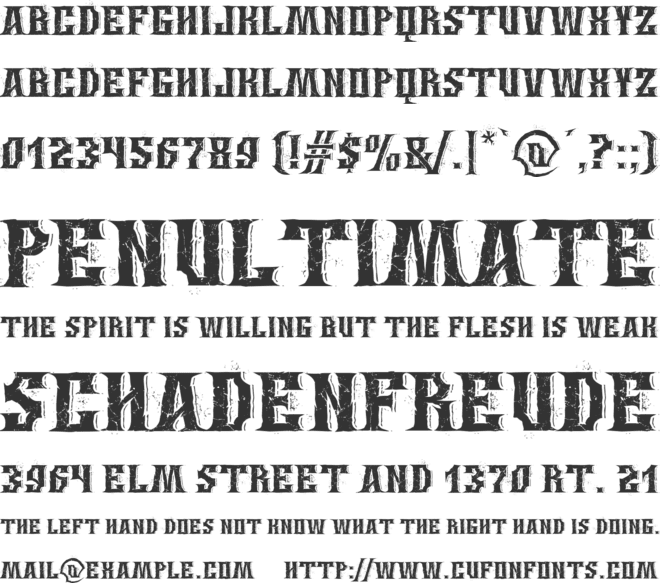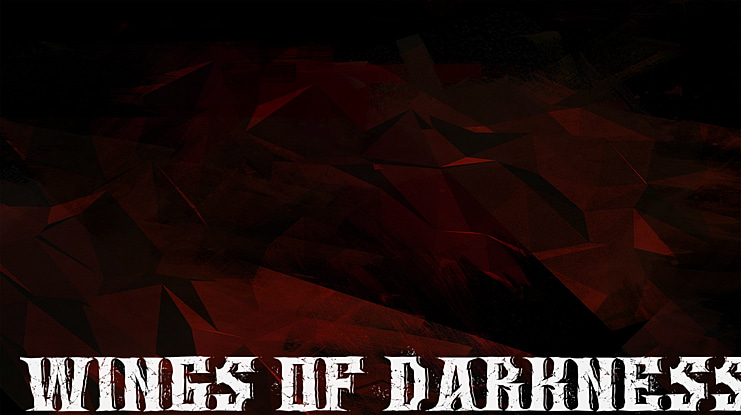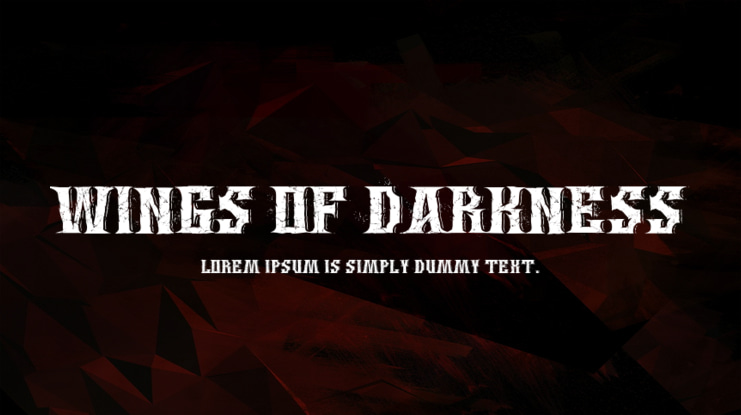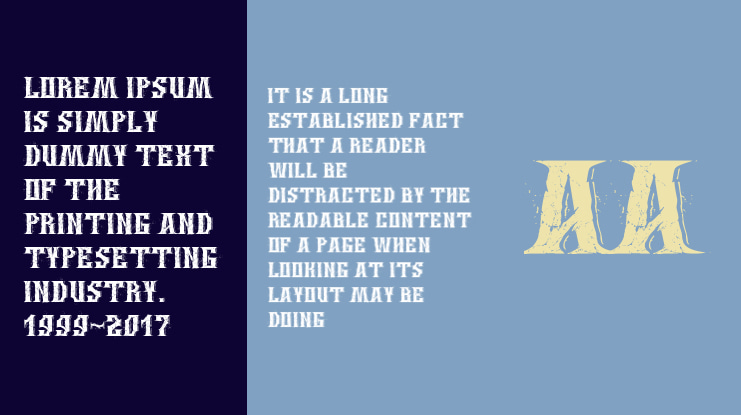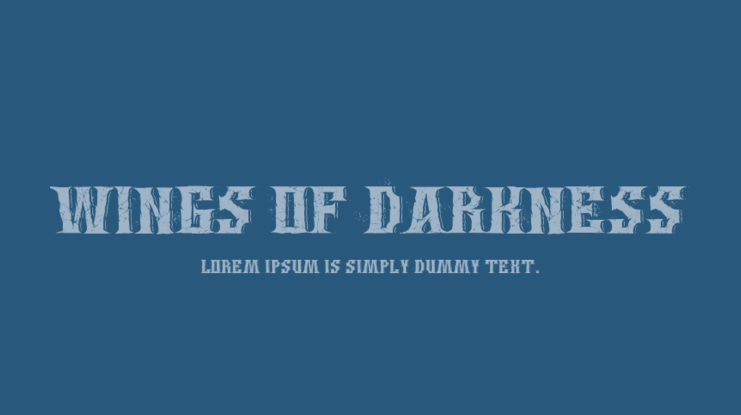
Wings of Darkness Font
Grunge, Modern Metal Font - Freeware for personal and commercial use. Credits are not required, but highly appreciated.
Incl. English (Latin), French, Dutch, Italian, Norwegian, Danish, Swedish, German, Finnish, Spanish, Portuguese, Icelandic, Hungarian, Czech, Maori, Polish, Romanian, Russian (Cyrillic) letters. Numbers and major punctuation marks. August 2015.